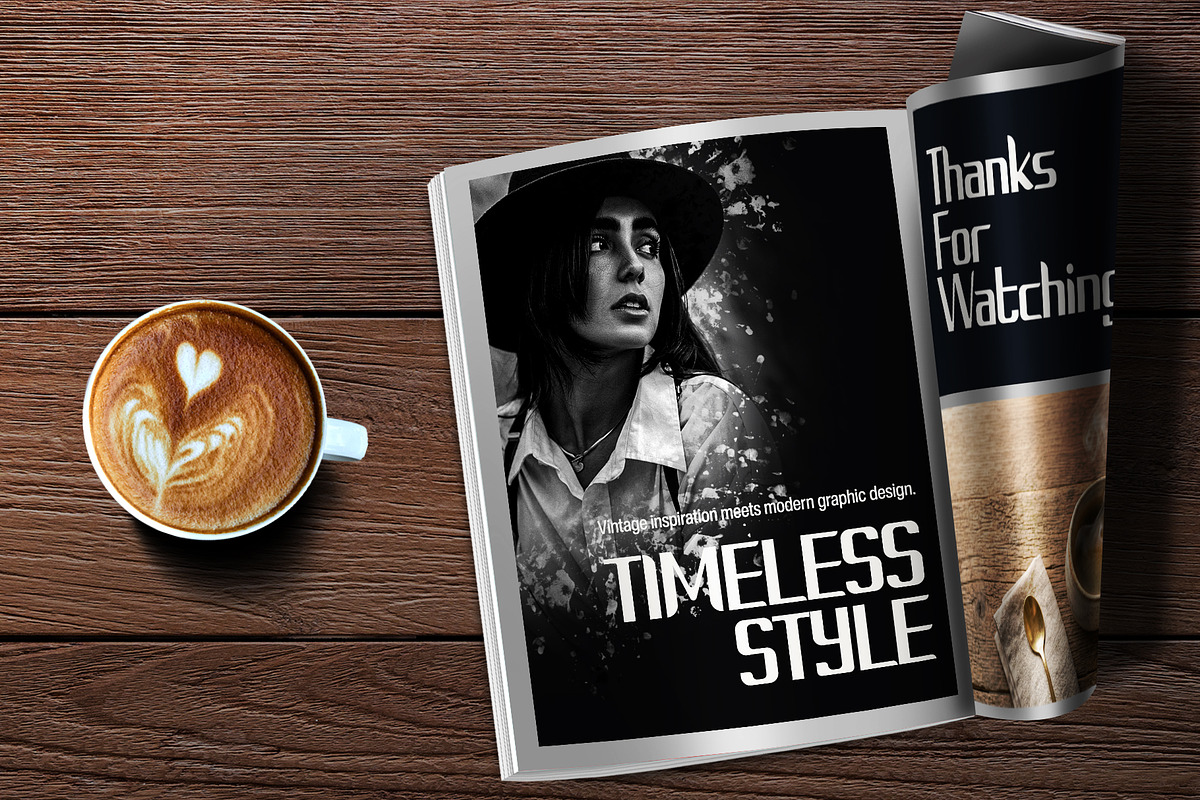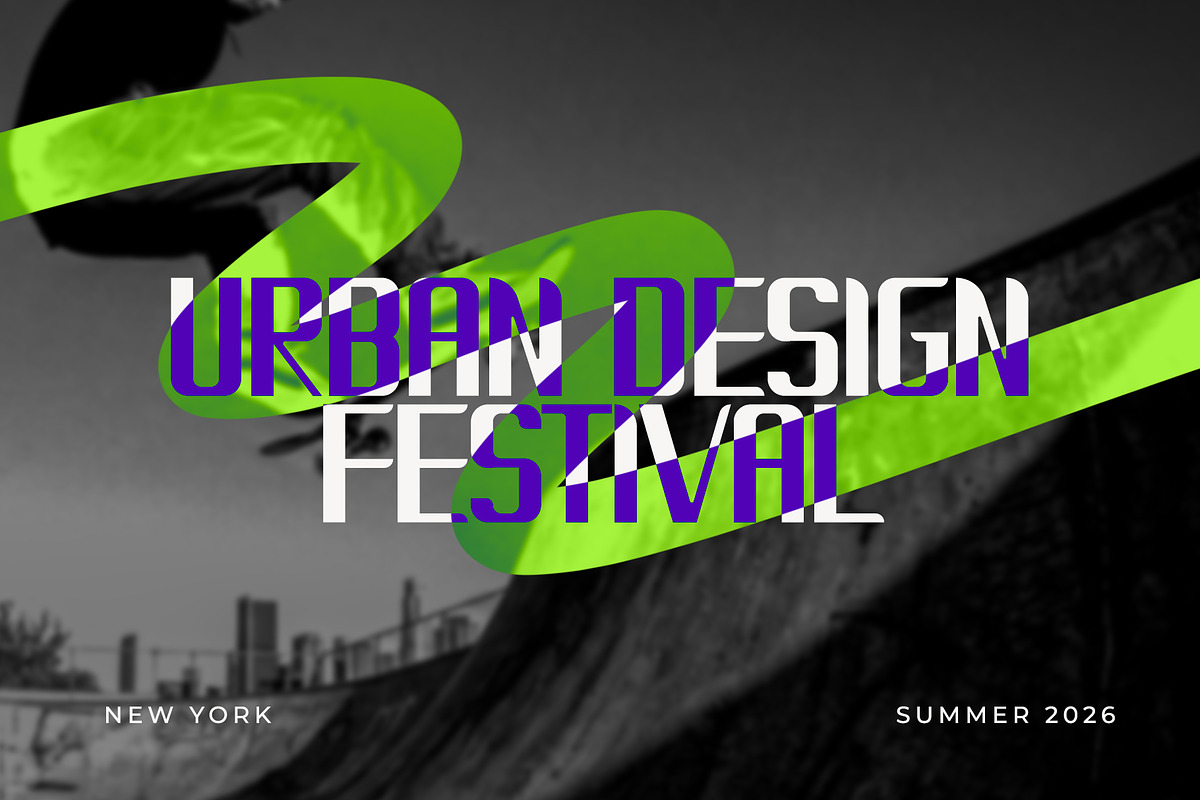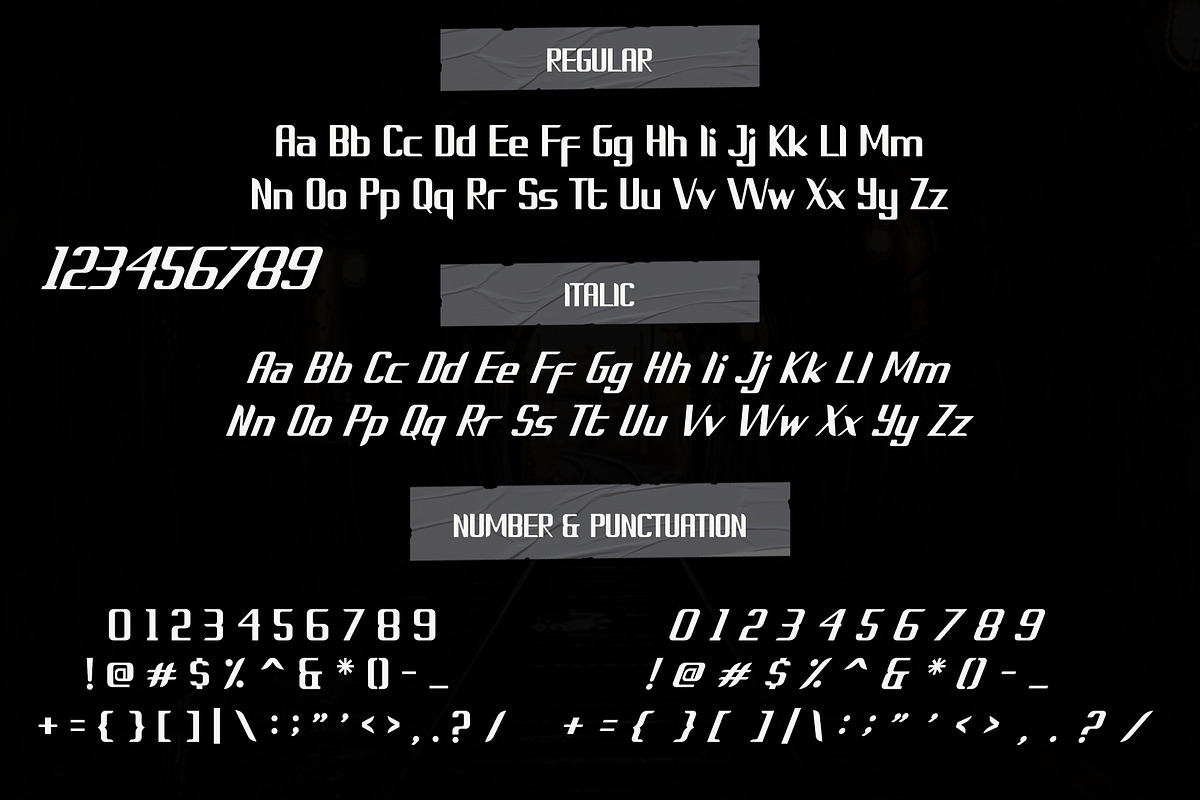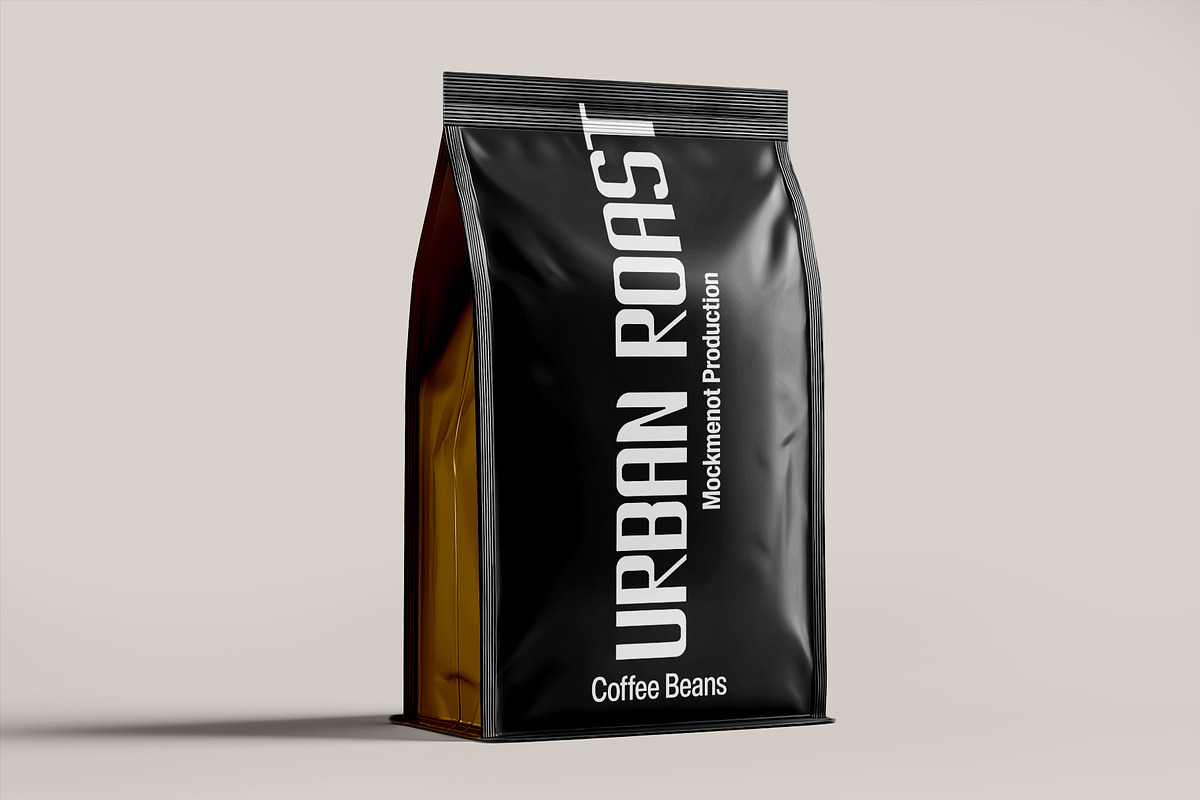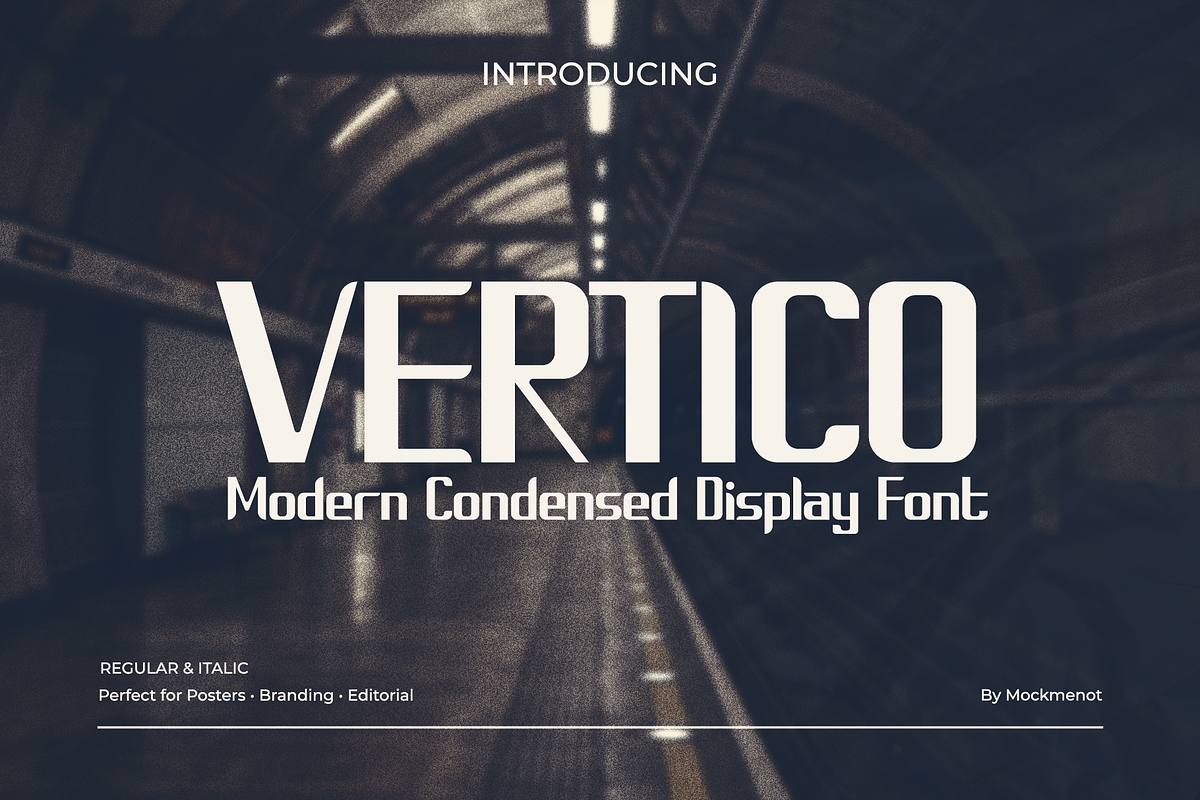
Vertico Modern Display Condensed
Vertico is a modern condensed display font with a clean, bold, and futuristic style. Its sleek shapes and dynamic italic option make it perfect for eye-catching headlines, posters, branding, editorial design, and modern visual projects.
This font includes Regular and Italic styles, uppercase, lowercase, numbers, and punctuation, making it versatile for both creative and professional designs.
Perfect for posters, branding, editorial layouts, sports graphics, and modern typography projects